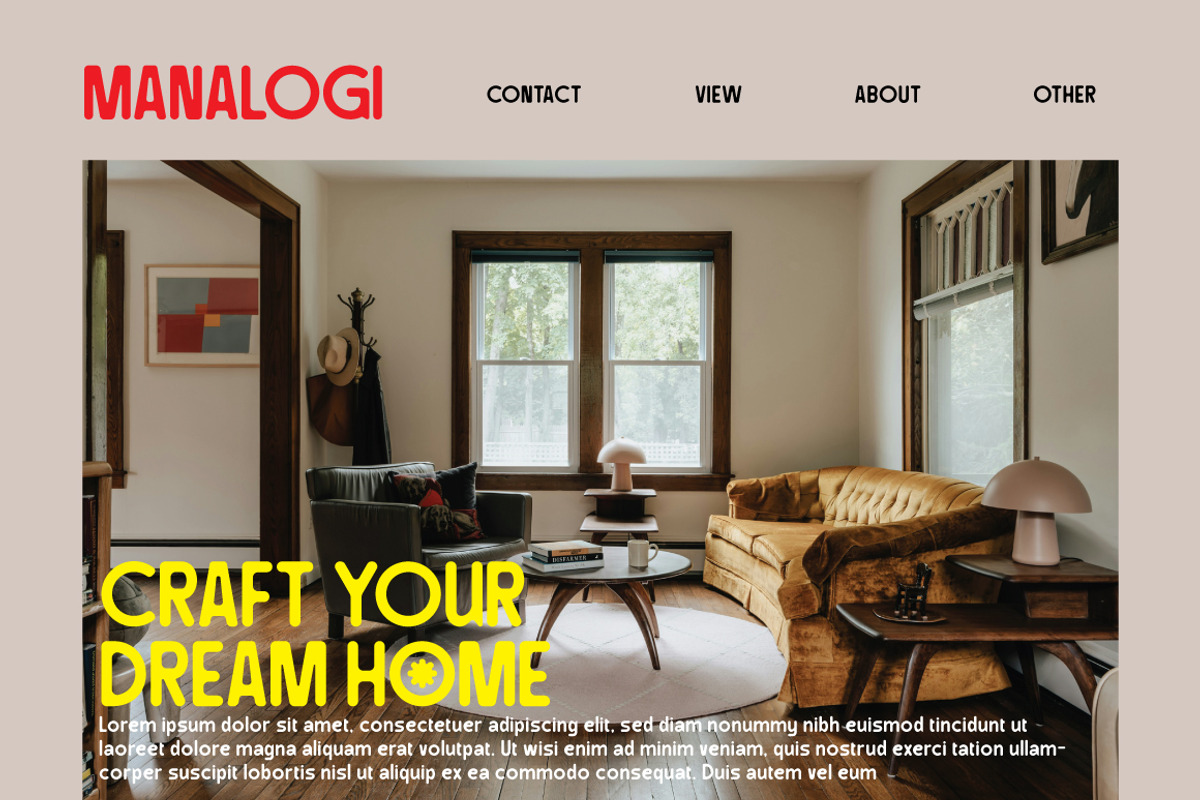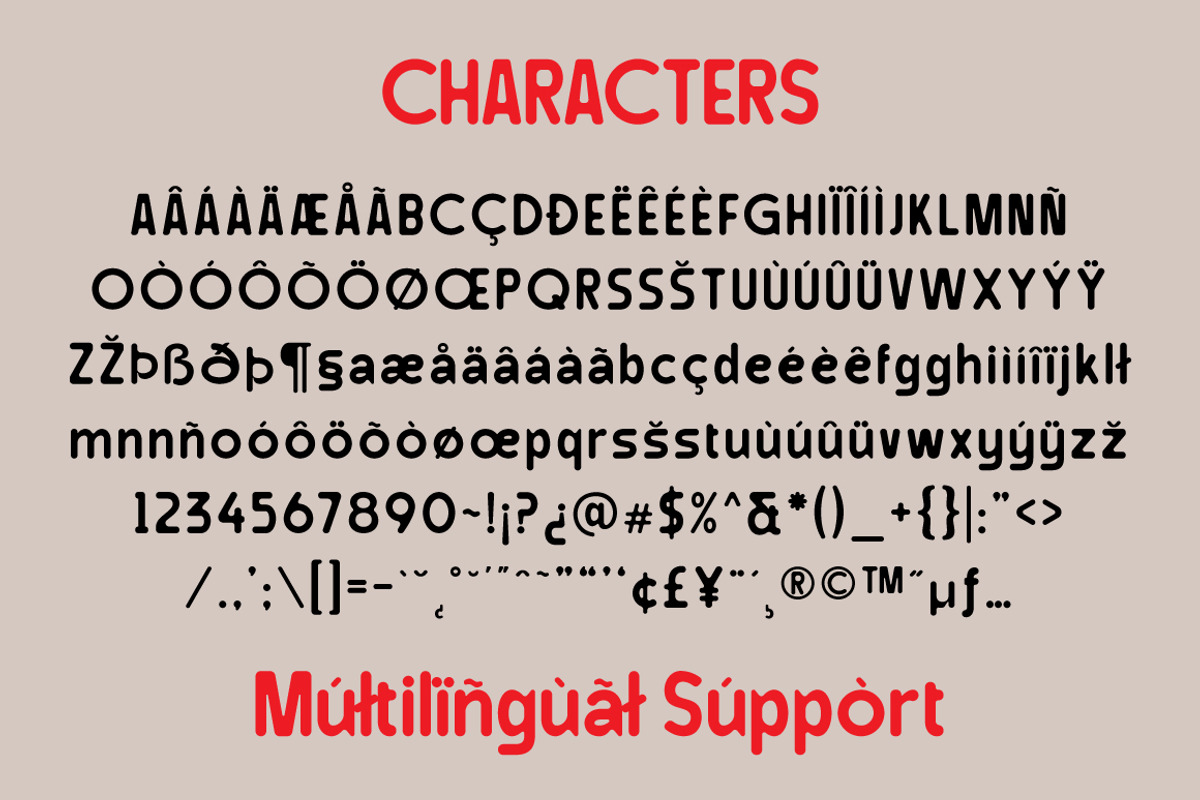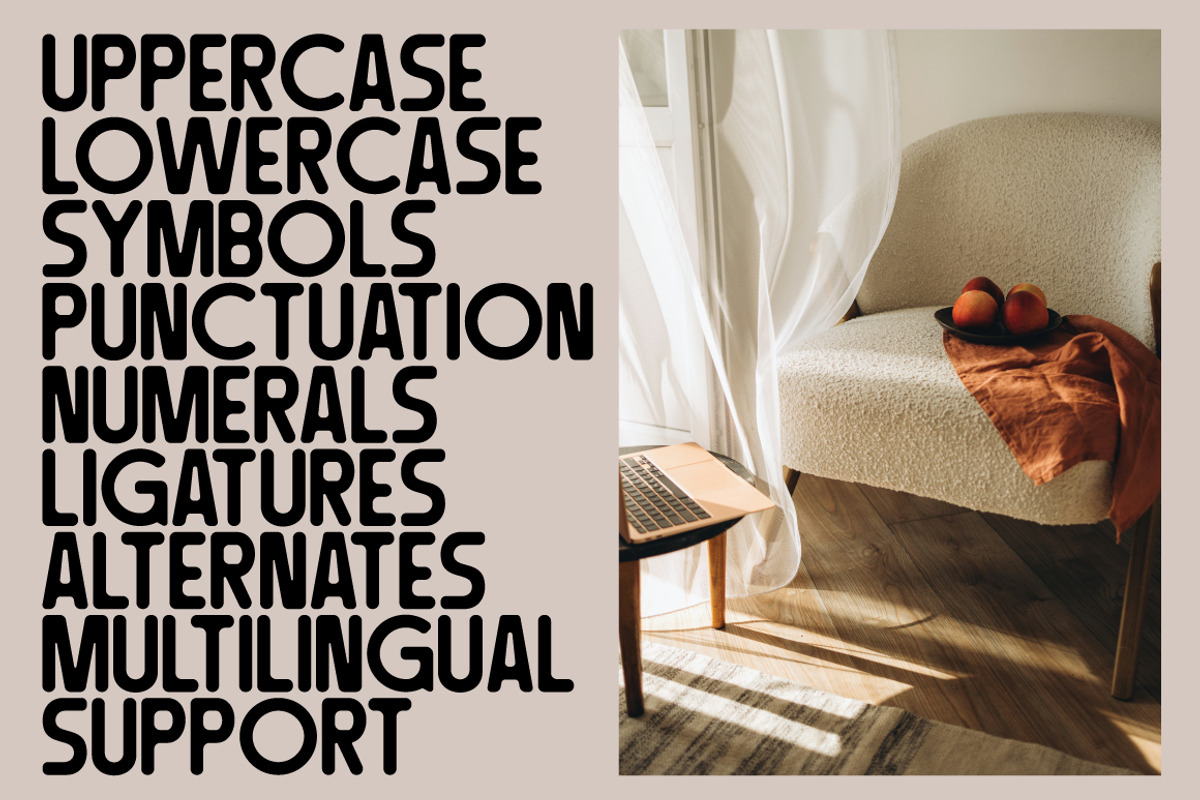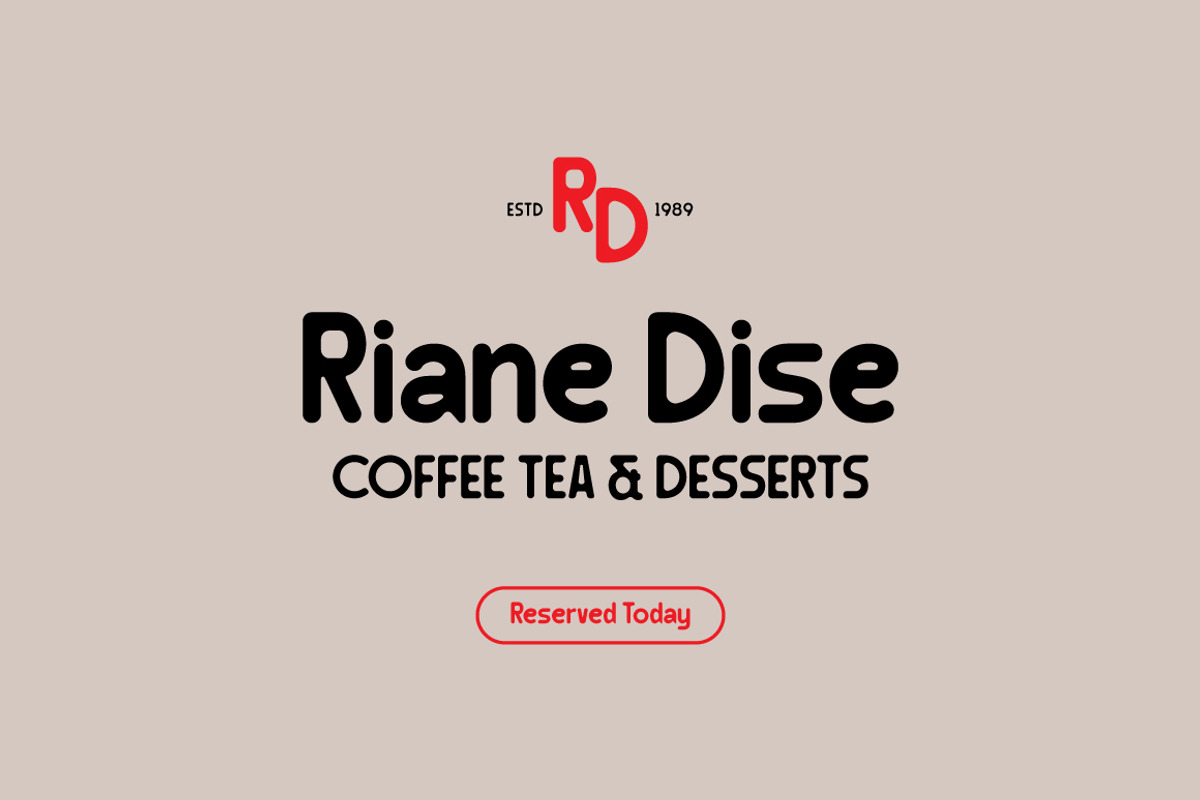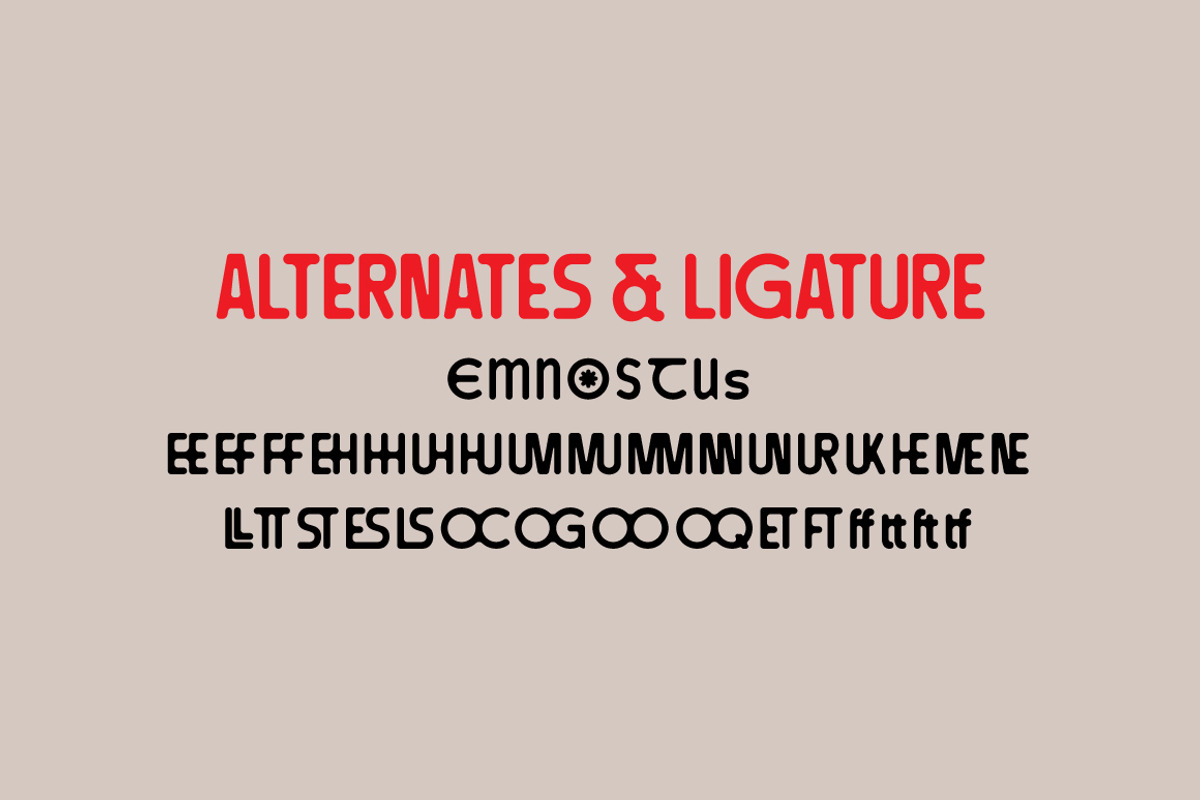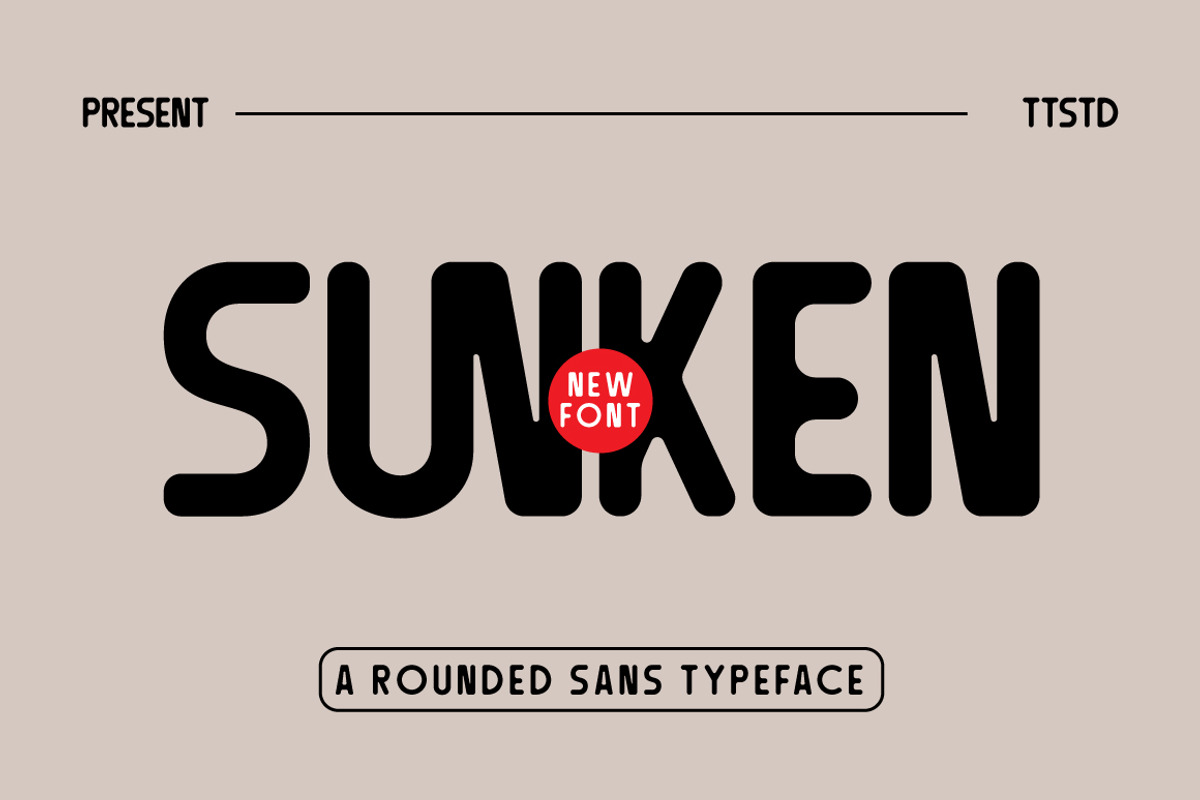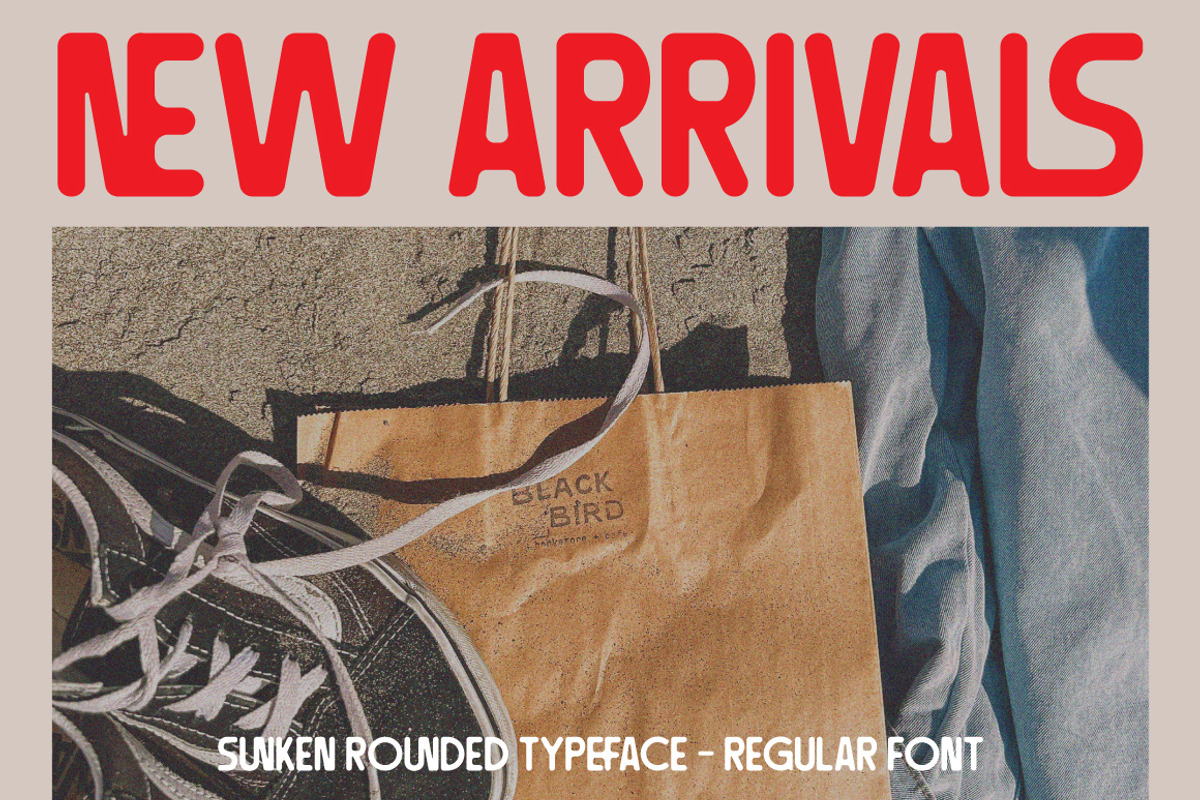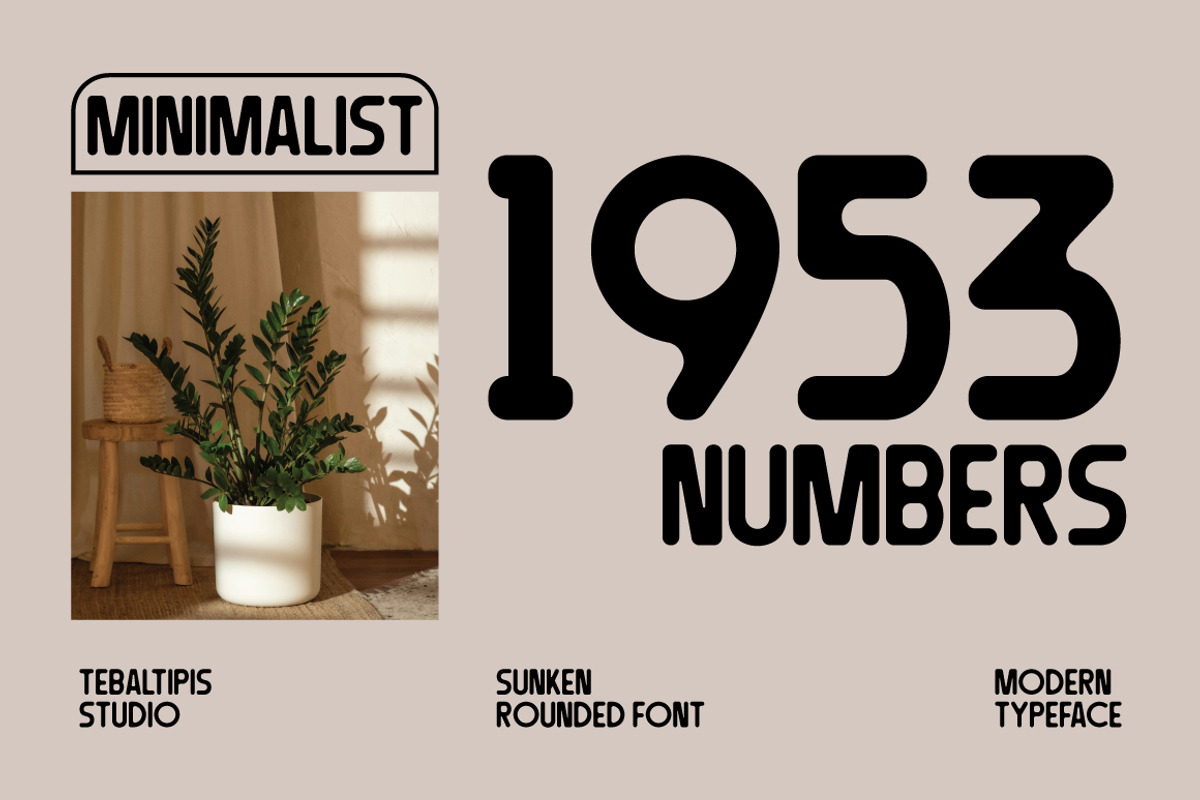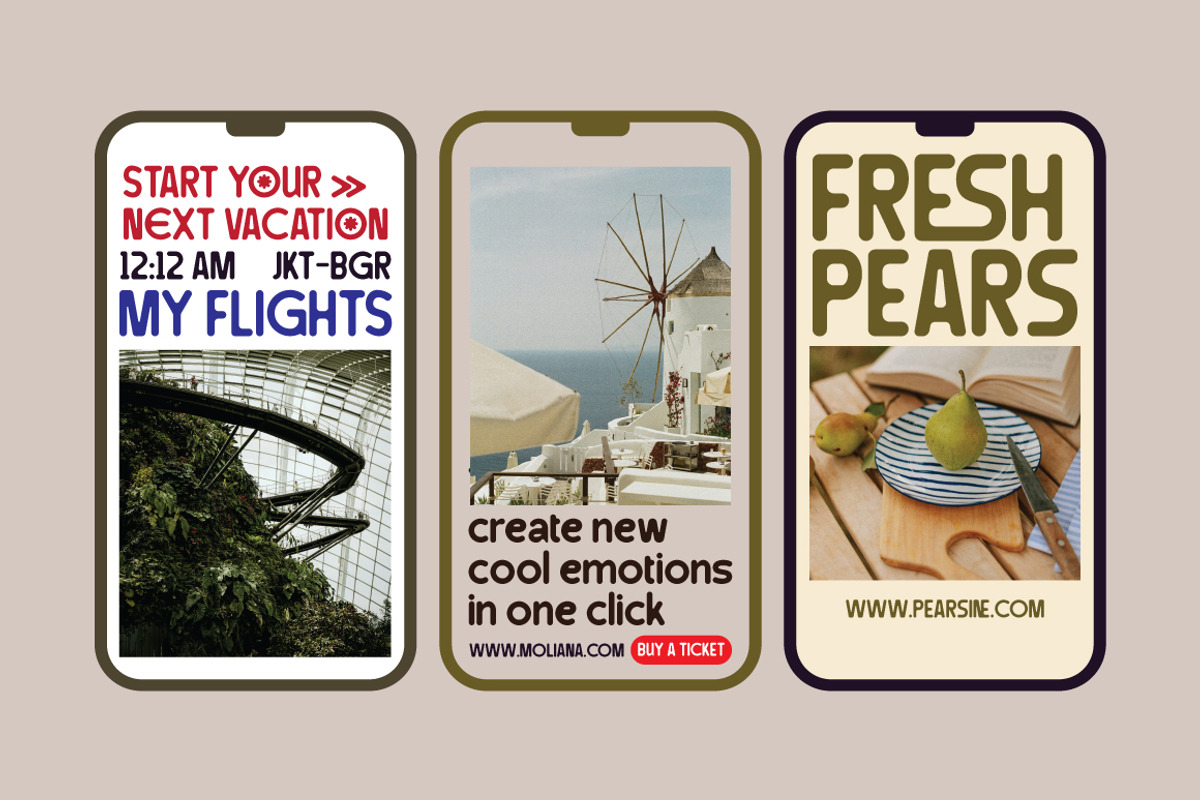
Sunken - Rounded Sans Typeface
Sunken Rounded Font is a rounded Sans font. It can easily be matched to an incredibly large set of projects, so add it to your creative ideas and notice how it makes them stand out!
Uppercase & Lowercase International Languange & Symbols Support Punctuation & Number PUA Unicode Range Standard Ligatures Discretionary Ligatures Stylistic Alternates Stylistic Set.